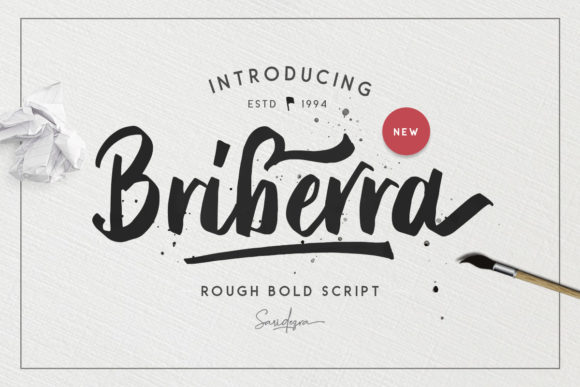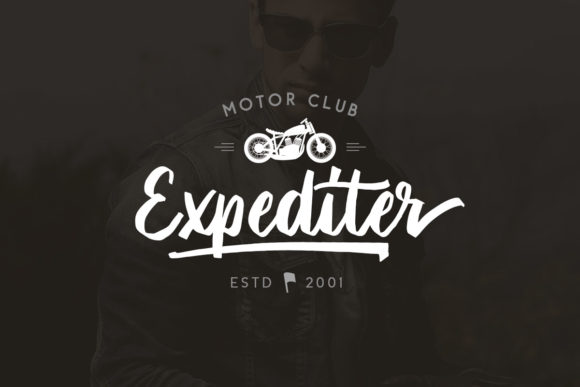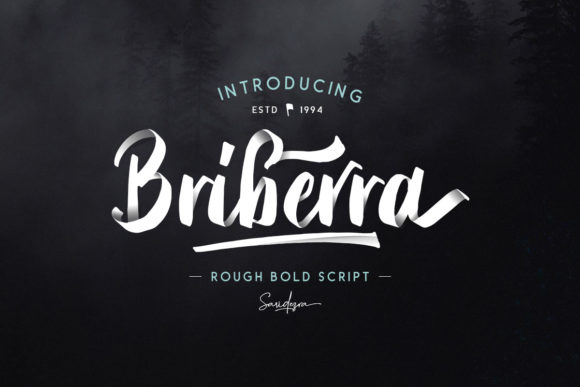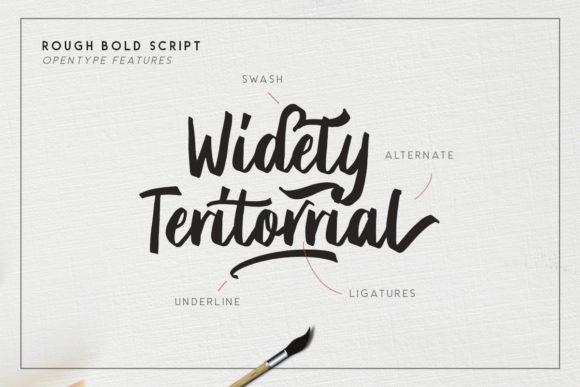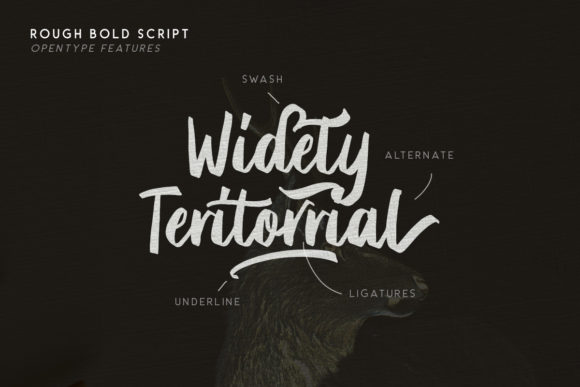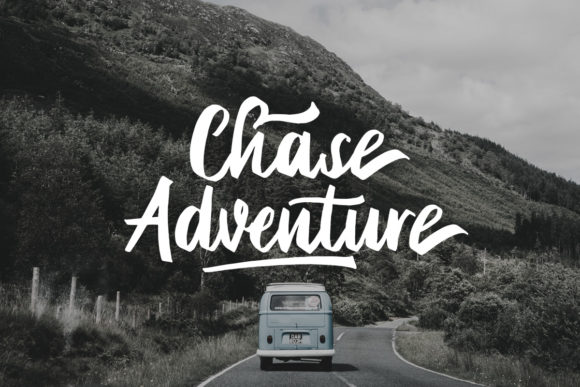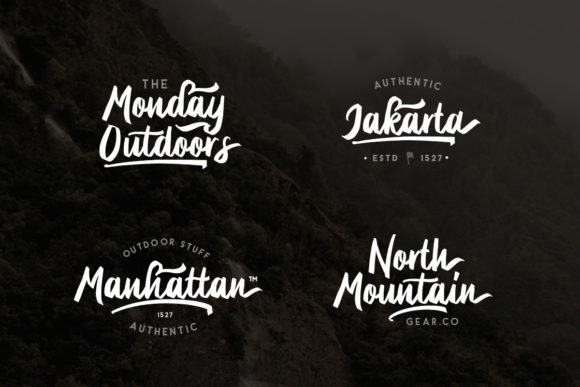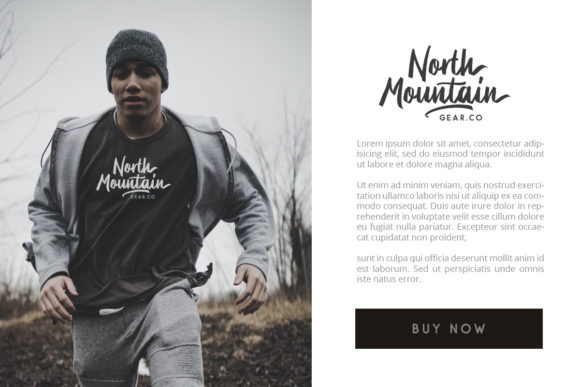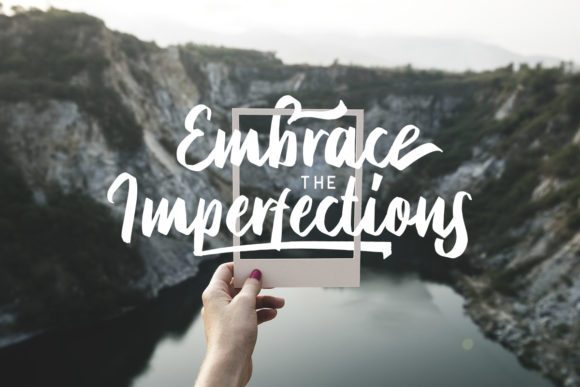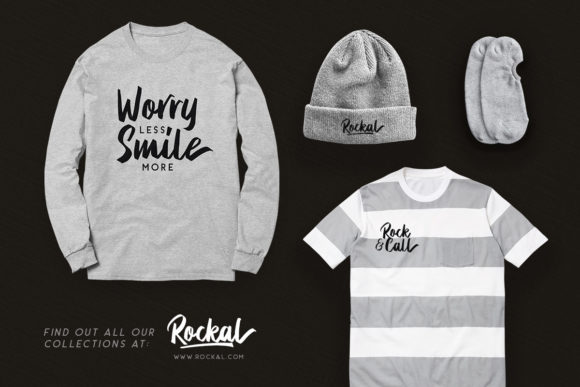
Briberra Script Font
About Briberra Script Font
The Briberra is a rough, bold script. It has a striking style which can be used to make your design stand out.
It can be used for quotes, t-shirt designs, headers, posters, and much more!